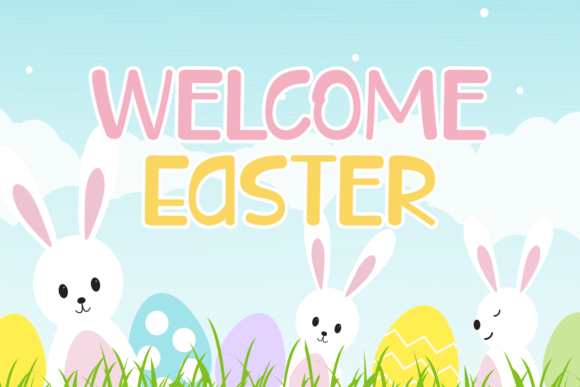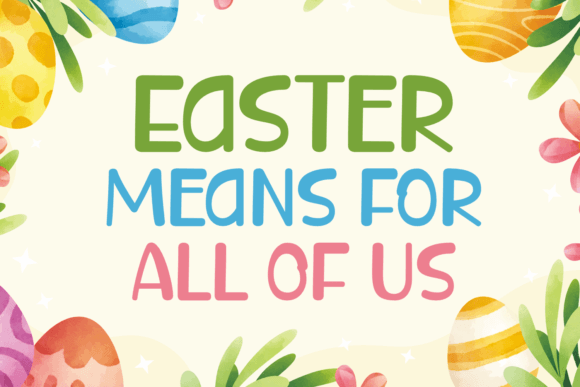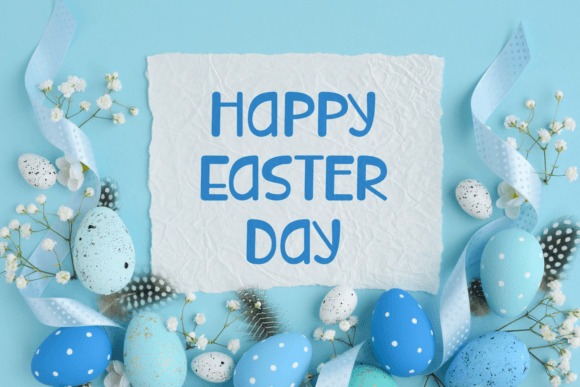
Easter Awaits Font: A Joyous Celebration of Artistic Genius
Welcome to the enchanting realm of Easter Awaits, a uniquely crafted handwritten font that embodies the joy and vibrancy of the Easter season. This versatile typeface is designed to bring an artistic touch to any setting, making it the perfect addition to your design projects. With its fluid sophistication and elegant flair, Easter Awaits is sure to captivate your audience and leave a lasting impression.
The Inspiration Behind Easter Awaits
Easter Awaits is more than just a font – it’s a celebration of artistic genius and innovative design. Inspired by the joyous theme of Easter, this typeface is crafted to evoke the sense of wonder and magic that comes with the season. The font’s creator has poured their heart and soul into designing a typeface that not only looks beautiful but also feels festive and fun.
A Versatile Typeface for Diverse Projects
One of the standout features of Easter Awaits is its versatility. This font can easily conform to diverse layouts and styles, making it perfect for a wide range of projects. Whether you’re designing a greeting card, a poster, or a digital graphic, Easter Awaits is sure to add a touch of elegance and sophistication. Its fluid lines and artistic flair make it an excellent choice for designers and crafters looking to add a personal touch to their work.
Adding a Shimmer of Elegance to Your Projects
The Easter Awaits font is designed to add a shimmer of elegance and a sprinkle of visual allure to your special projects. Its sophisticated lines and curves create a sense of movement and fluidity, making it perfect for designs that require a touch of whimsy and playfulness. Whether you’re creating a DIY craft project or a professional design, Easter Awaits is sure to elevate your work to the next level.
Unfold the Beauty of Easter Awaits
So why settle for ordinary fonts when you can unfold the beauty of Easter Awaits? This enchanting font is sure to bewitch your creative universe, inspiring you to create designs that are truly unique and captivating. With Easter Awaits, you can add a touch of artistic genius to your work, making it stand out from the crowd.
Easter Awaits is a font that is perfect for designers and crafters alike. Its versatility and elegance make it an excellent choice for a wide range of projects, from digital graphics to handmade crafts. Whether you’re a professional designer or a DIY enthusiast, Easter Awaits is sure to inspire you to create something truly special.
Key Features of Easter Awaits
- Uniquely crafted handwritten font
- Inspired by the joyous theme of Easter
- Versatile typeface that can conform to diverse layouts and styles
- Fluid sophistication and elegant flair
- Perfect for a wide range of projects, from digital graphics to handmade crafts
Get Ready to Create Something Magical
With Easter Awaits, you’re not just getting a font – you’re getting a key to unlock your creative potential. This enchanting typeface is sure to inspire you to create something truly magical, whether you’re designing a greeting card, a poster, or a digital graphic. So why wait? Get ready to unleash your creativity and let Easter Awaits bewitch your creative universe!
In conclusion, Easter Awaits is a font that is sure to captivate your audience and leave a lasting impression. Its unique blend of elegance and playfulness makes it perfect for designers and crafters looking to add a touch of artistic genius to their work. So why settle for ordinary fonts when you can have Easter Awaits? Unfold the beauty of this enchanting font and let it inspire you to create something truly special.